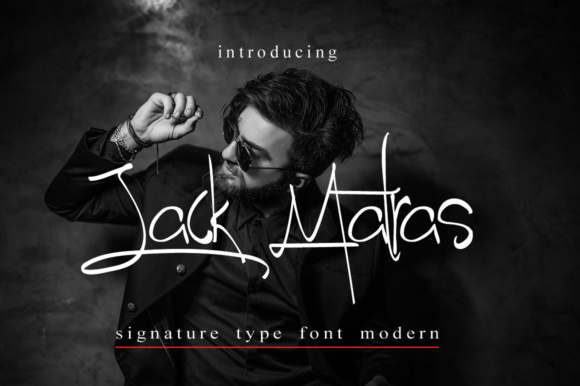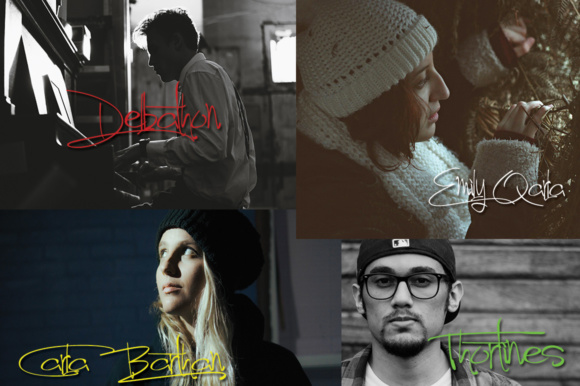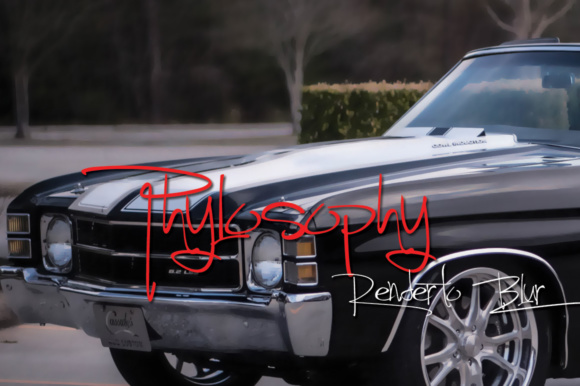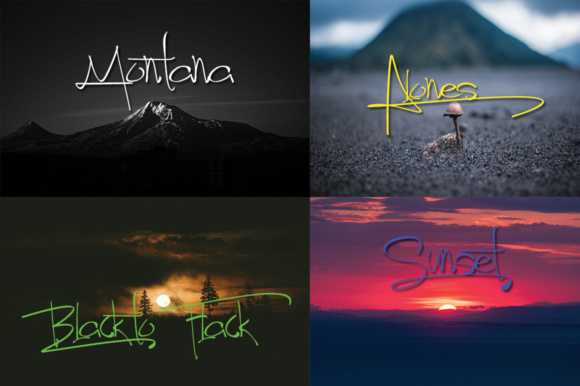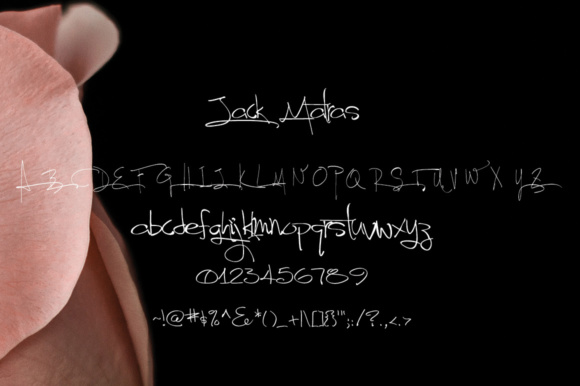
HomeScript FontsJack Matras Font Script Fonts Jack Matras Font FacebookXPinterestWhatsApp Jack Matras Font Poster 2 Jack Matras Font Poster 3 Jack Matras Font Poster 4 Jack Matras Font Poster 5 About Jack Matras Font Jack Matras is a fun, modern signature font. DOWNLOAD ON CREATIVE FABRICAThis font is sold and delivered by Creative Fabrica. Font Canyon may earn a commission if you buy through this link. People also explored BigPartyO2 Orange Font Office Blogger Hello Cute Font Kryfoas Font Montoliso Font Vanilla Ice Font Buxton Font Fathers Font Driving Around Font 331 0 TagsJack Matras Font Previous articleStephany FontNext articleLe Kilimanjaro Font LEAVE A REPLY Cancel reply Comment: Please enter your comment! Name:* Please enter your name here Email:* You have entered an incorrect email address! Please enter your email address here Website: Save my name, email, and website in this browser for the next time I comment. Personal Use Free BD Lofi Personal Use Free Read more about this font Trio Personal Use Free Read more about this font Multicolore Personal Use Free Read more about this font Baveuse Personal Use Free Read more about this font BLOG Free Fonts Risk: Why Free Fonts Can Be Dangerous for Designers Free Fonts Risk: Why Free Fonts Can Be Dangerous for Designers Using free fonts is a common practice in web and graphic design. However, the... Top 10 Handwritten Fonts That Elevate Your Designs How to Cut Any Font on Cricut: Convert a Font to SVG (Free) Elegant Wedding Invitation Fonts – Handwritten & Script Fonts